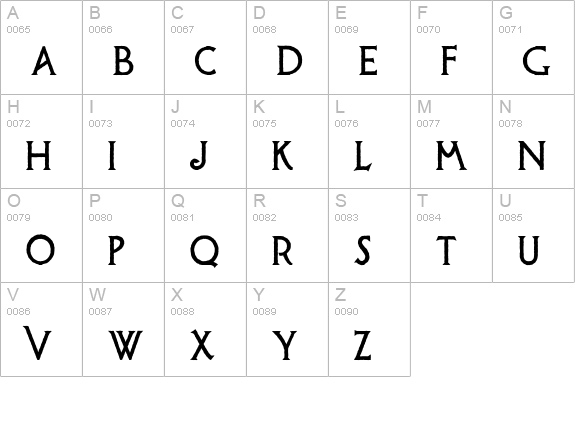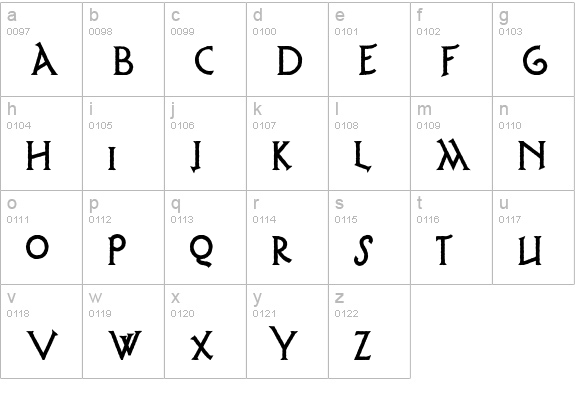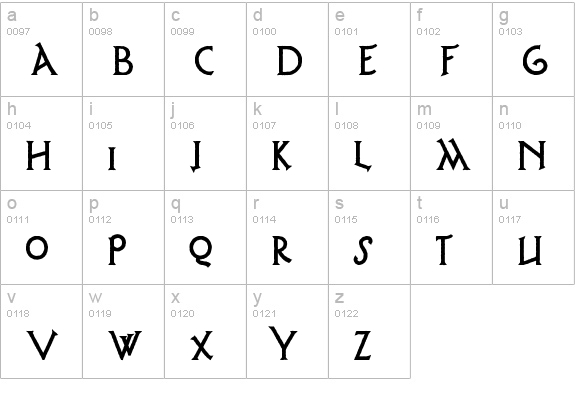
Possum Saltare NF Font Details
Possum Saltare NF is a whimsical and playful font that exudes a sense of charm and character. With its unique design and quirky details, this font is perfect for adding a touch of fun to any project. It features a mix of rounded edges and flowing lines, giving it a delightful and inviting appearance. What makes Possum Saltare NF even more appealing is that it is completely free to download at FontsMarket.com. This means that you can easily access this charming font and use it in your designs without any cost. Whether you're working on a creative project, crafting invitations, or designing social media graphics, Possum Saltare NF is sure to bring a smile to your audience's face. Embrace the playful spirit of Possum Saltare NF and let your creativity soar with this delightful font that is freely available for you to enjoy. Download it today and add a touch of whimsy to your designs!